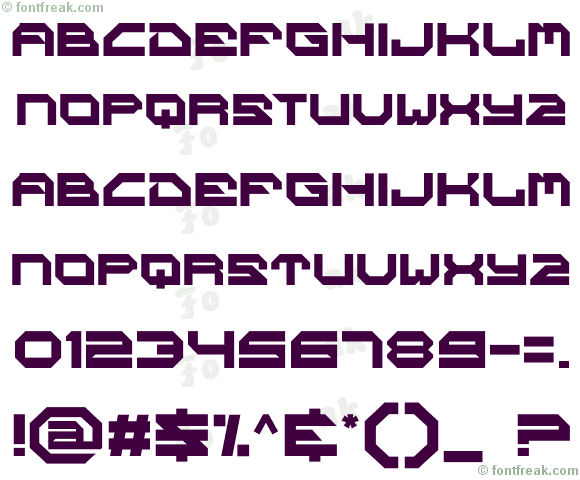
SPACE JAEGER
Introducing the SPACE JAEGER font by MaknaStudio, a distinctive typeface that captures the essence of modern design with a futuristic twist. This display font is characterized by its bold, geometric shapes and clean lines, making it an eye-catching choice for a variety of creative projects. The stroke weight is consistently thick, lending a strong presence to any text while maintaining a balanced and cohesive look. The high contrast in certain letterforms adds a dynamic quality, ensuring that your message stands out clearly.
SPACE JAEGER is ideal for several specific use cases. It shines in the realm of movie posters, where its striking visual appeal can capture the attention of potential viewers. Additionally, it works wonderfully for branding in tech startups, providing a contemporary feel that resonates with innovation and forward-thinking. You'll also find it suitable for event flyers that require a modern touch, as well as signage for gaming conventions, where its bold style can easily attract gamers' interest. The versatility of this font makes it a valuable asset for graphic designers, small business owners, and content creators looking to elevate their visual identity.
What sets the SPACE JAEGER font apart is its unique balance of form and function. The design captures an adventurous spirit, inviting creativity and exploration. As a freeware typeface, it offers unlimited potential for personal and commercial projects alike. Grab your SPACE JAEGER font free download today and infuse your designs with a sense of modernity and style that is sure to leave a lasting impression. Whether you are creating promotional materials or embarking on a new branding journey, this font provides the perfect canvas for your ideas.